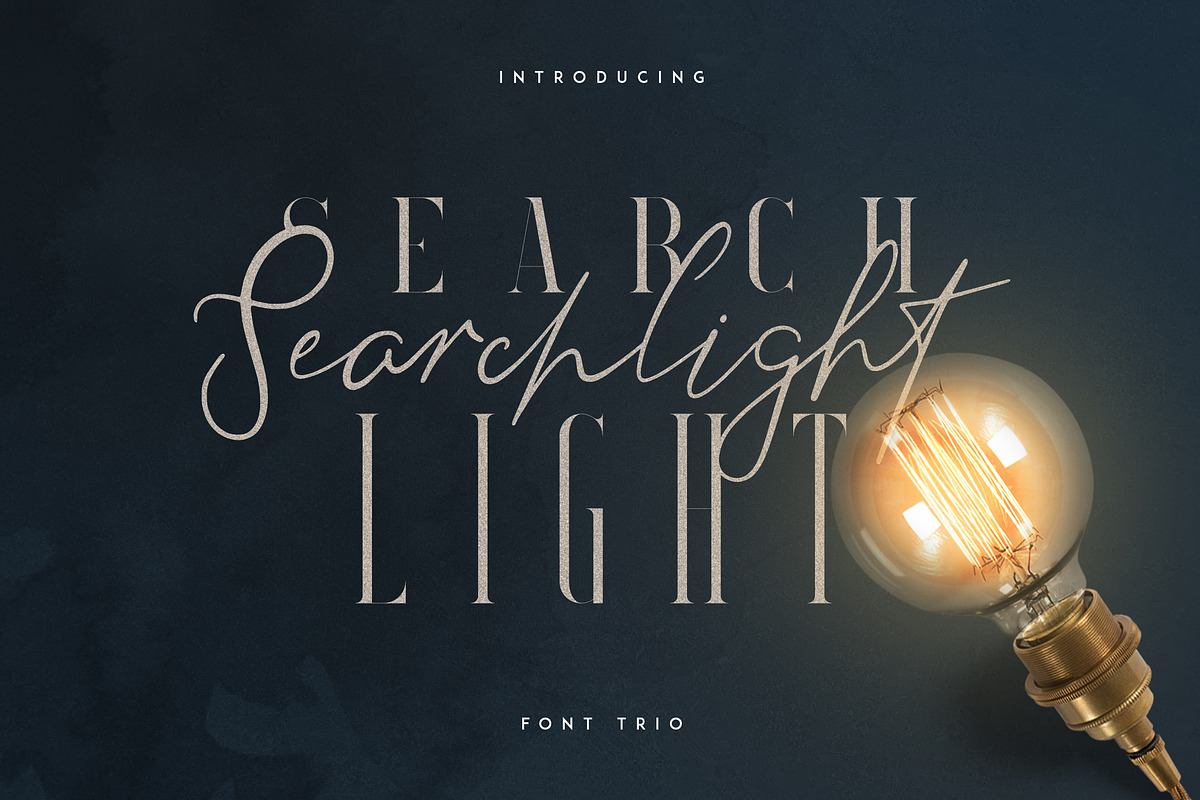
Searchlight - Font Trio Free Download is a versatile font bundle that combines three distinct typefaces: a modern sans-serif, a stylish script, and a bold display font. Perfect for branding, posters, social media graphics, and editorial layouts, this trio provides endless creative possibilities. Please note that you must purchase this font for commercial use, but it is available as a free download for testing purposes. Elevate your design projects with the flexibility and flair of Searchlight - Font Trio Free Download, and bring your typography to life with a perfect mix of styles.